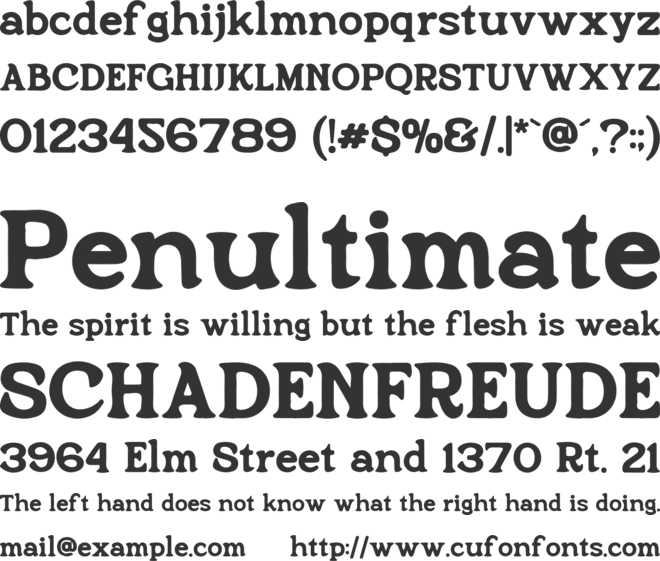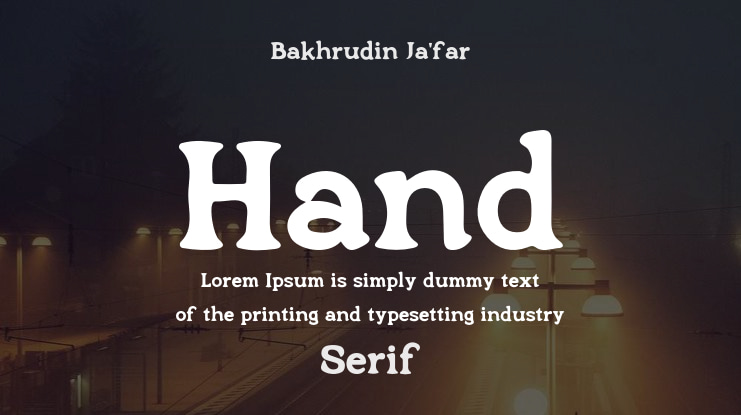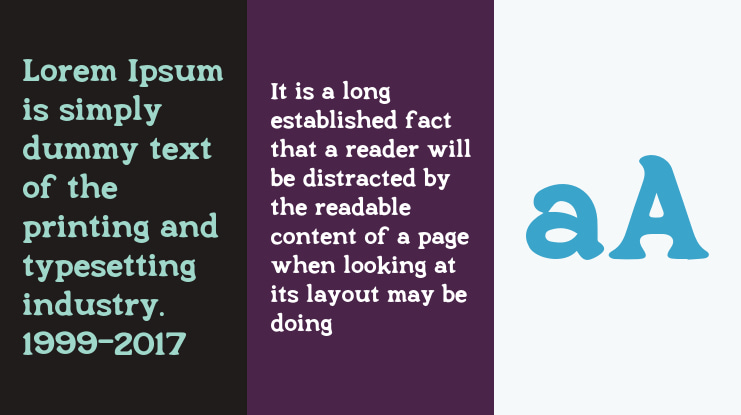
Bakhrudin Ja'far
Lazy Worker a unique handwritten serif font that seamlessly blends modern and retro aesthetics. Crafted meticulously by hand, this font adds a personal touch to your design projects, making it perfect for branding, posters, invitations, and web designs. The combination of its distinct hand-drawn style and elegant serif structure ensures that your work stands out with a touch of charm and sophistication. Lazy Worker is versatile and adaptable, providing a stylish solution for various creative endeavours.
Embrace the modern retro vibe with Lazy Worker and transform your projects with its captivating and stylish appeal. Lazy Worker offers the perfect balance of artistic expression and professional quality, whether you’re a graphic designer, a brand creator, or someone looking to add a unique flair to your work. Its handcrafted design and distinctive character make it an ideal choice for anyone seeking to elevate their designs with a trendy and timeless font.
Regular font
Uppercase and Lowercase Letters, Numerals, Punctuation,
Multilingual Support